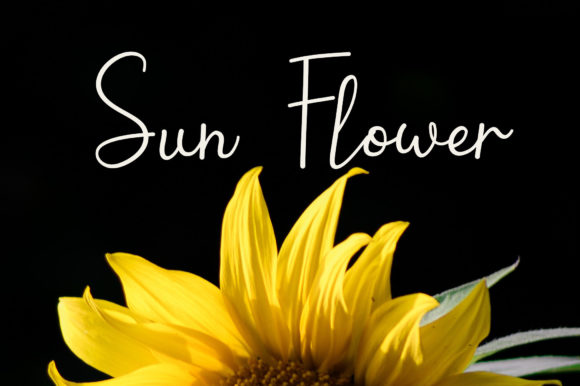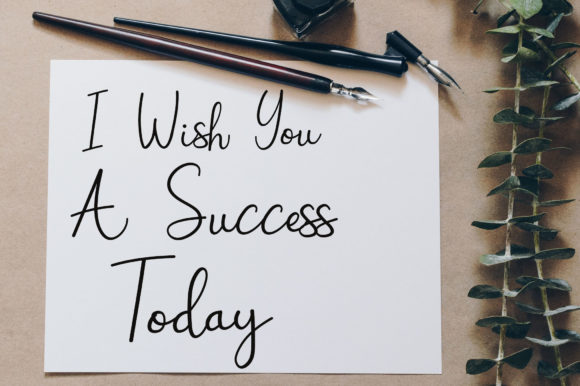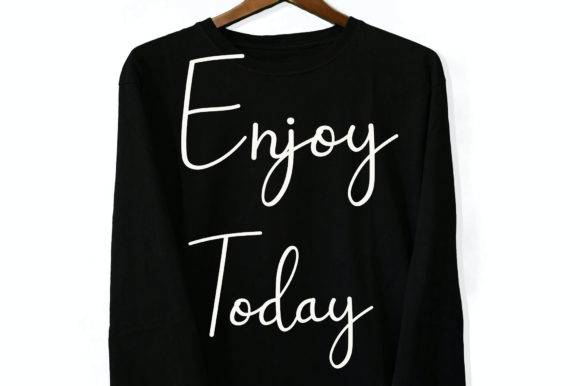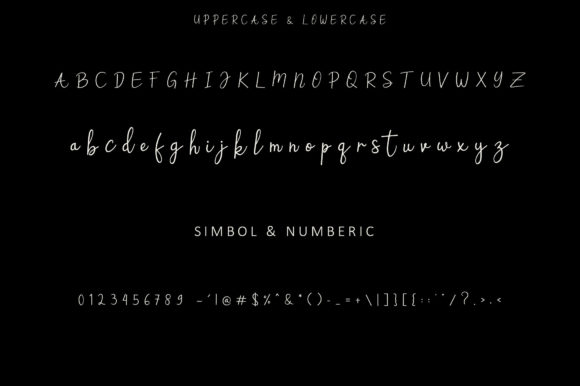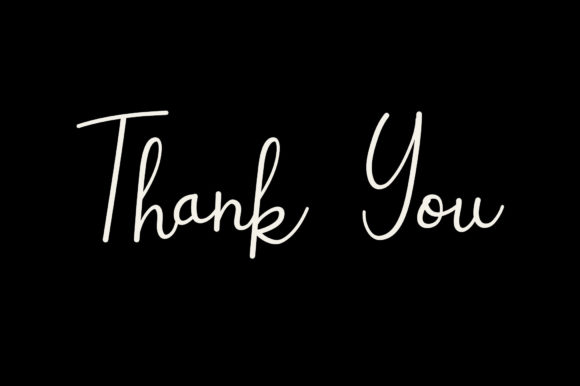
Faustine Font
About Faustine Font
Faustine is a flowing, well balanced and beautiful script font. Its sweet and full of life style makes this font a wonderful choice for brightening up your designs.